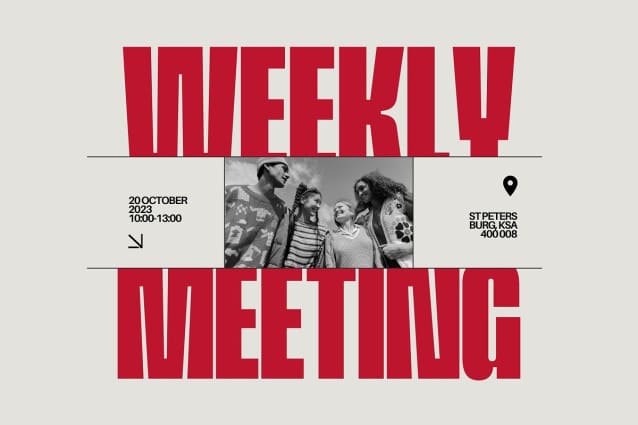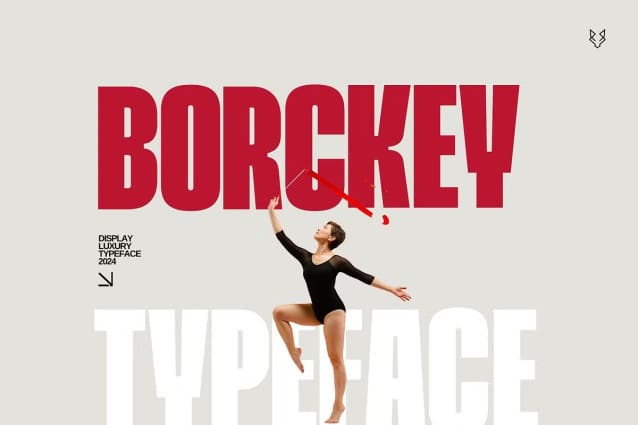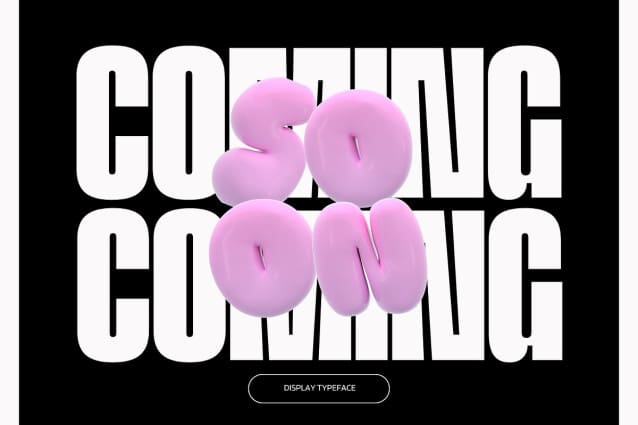
Borckey Font
Borckey Font is a meticulously crafted font, designed to make a bold statement in your creative projects. Ideal for posters, magazine covers, headlines, and more, this font brings a modern and dynamic touch to any design.